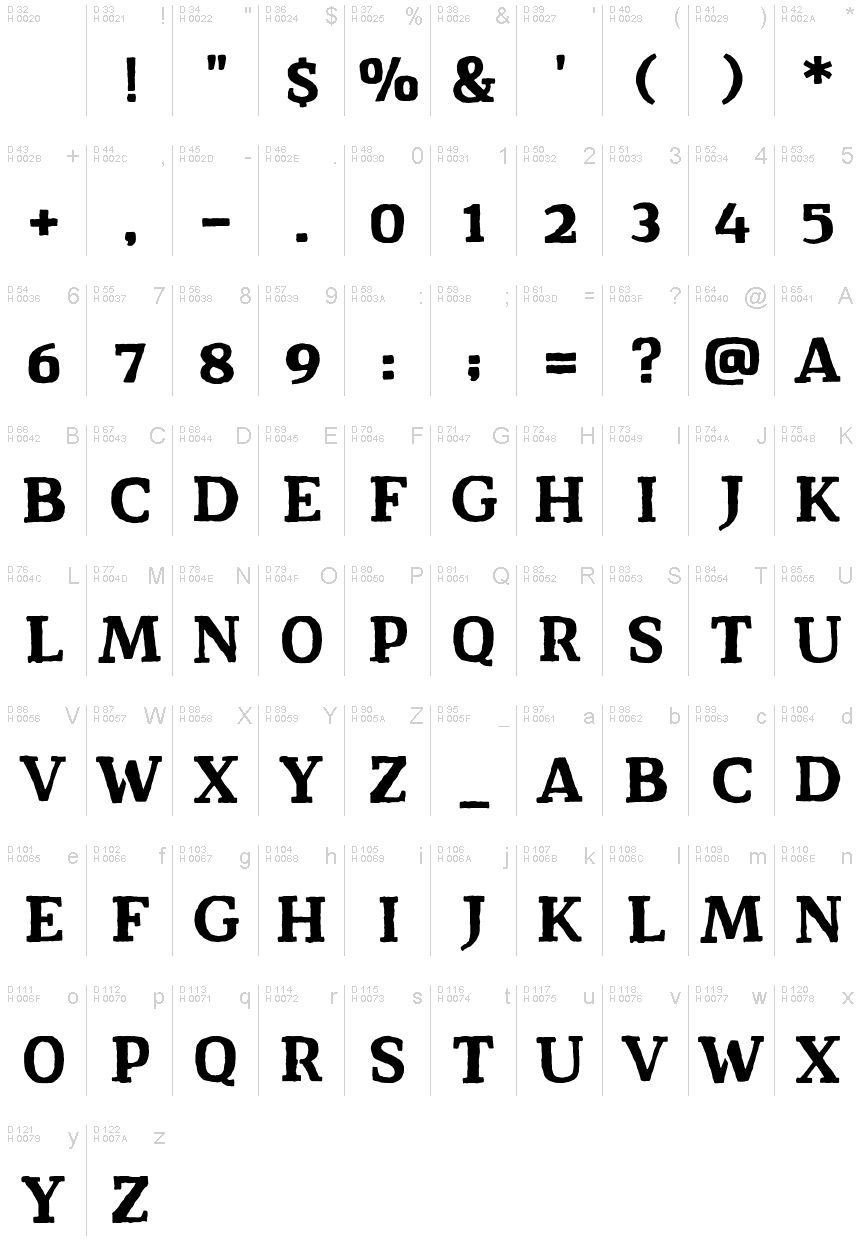
Dark Hut, a haunting creation by Khurasan, sets the stage for spine-chilling holiday projects. With its bold weight and semi-expanded width, this Halloween-inspired typeface adds an eerie touch to your designs.
Its eroded style evokes a sense of mystery and darkness, making it perfect for haunted house flyers, spooky party invitations, or horror movie posters. Dark Hut’s unique combination of holiday charm and haunting aesthetics will leave a lasting impression on all who encounter it.
Beware: this font is not for the faint of heart!